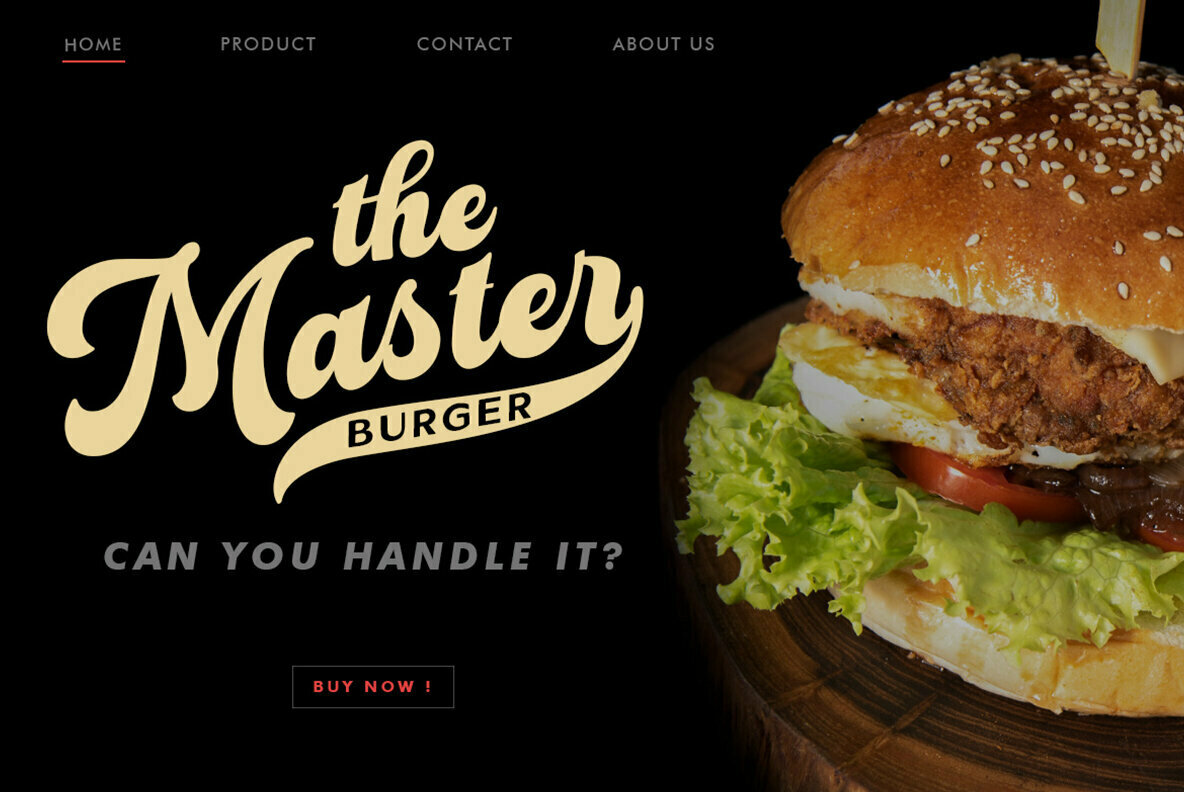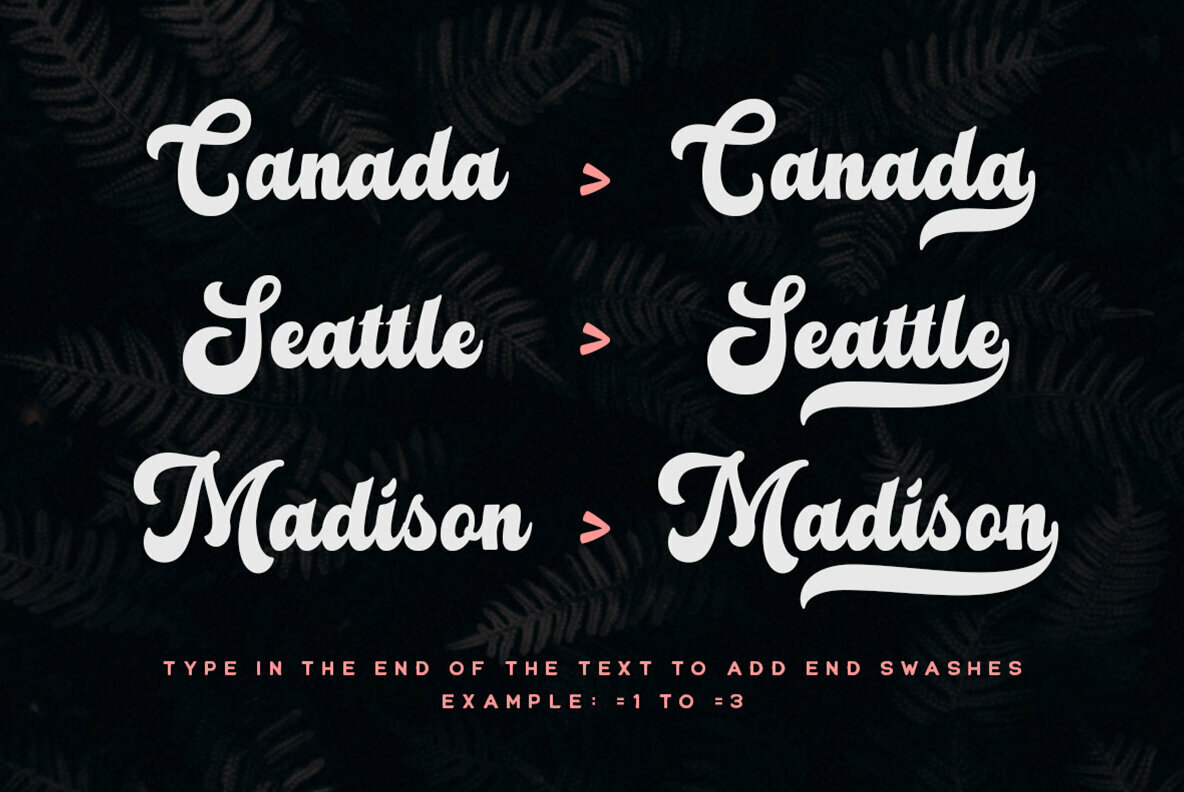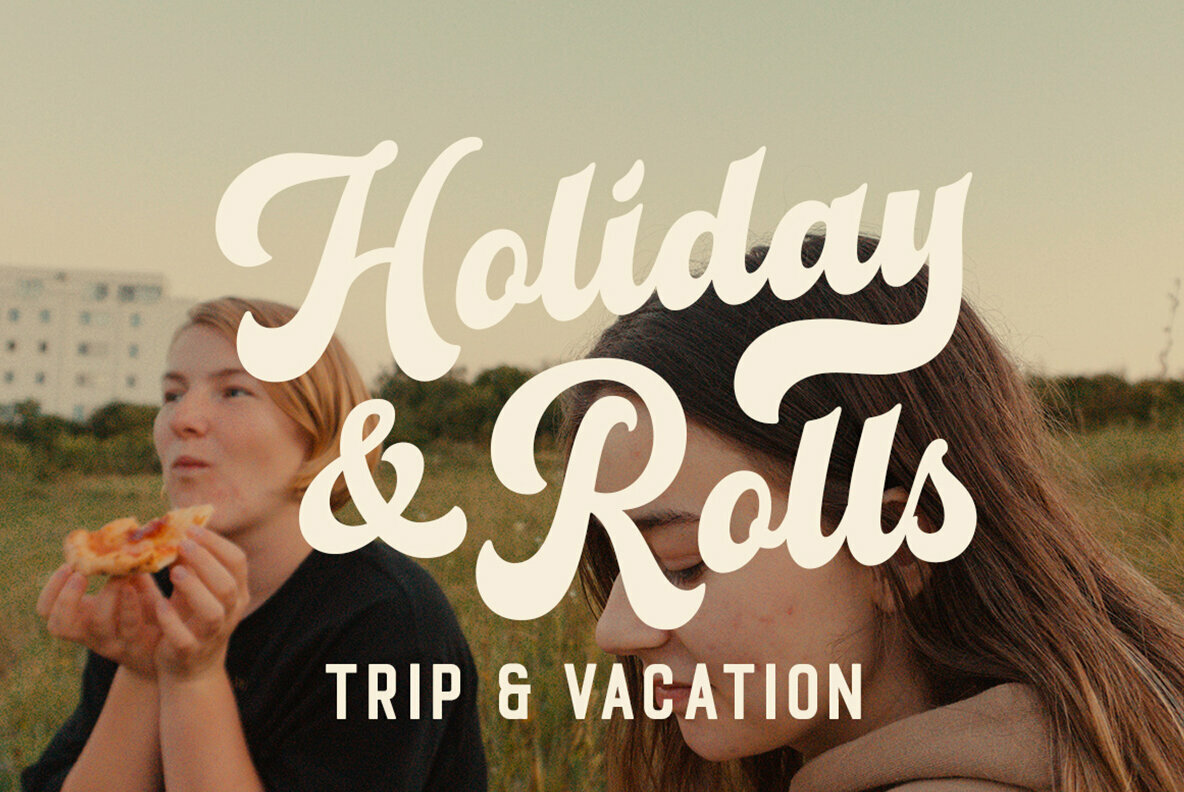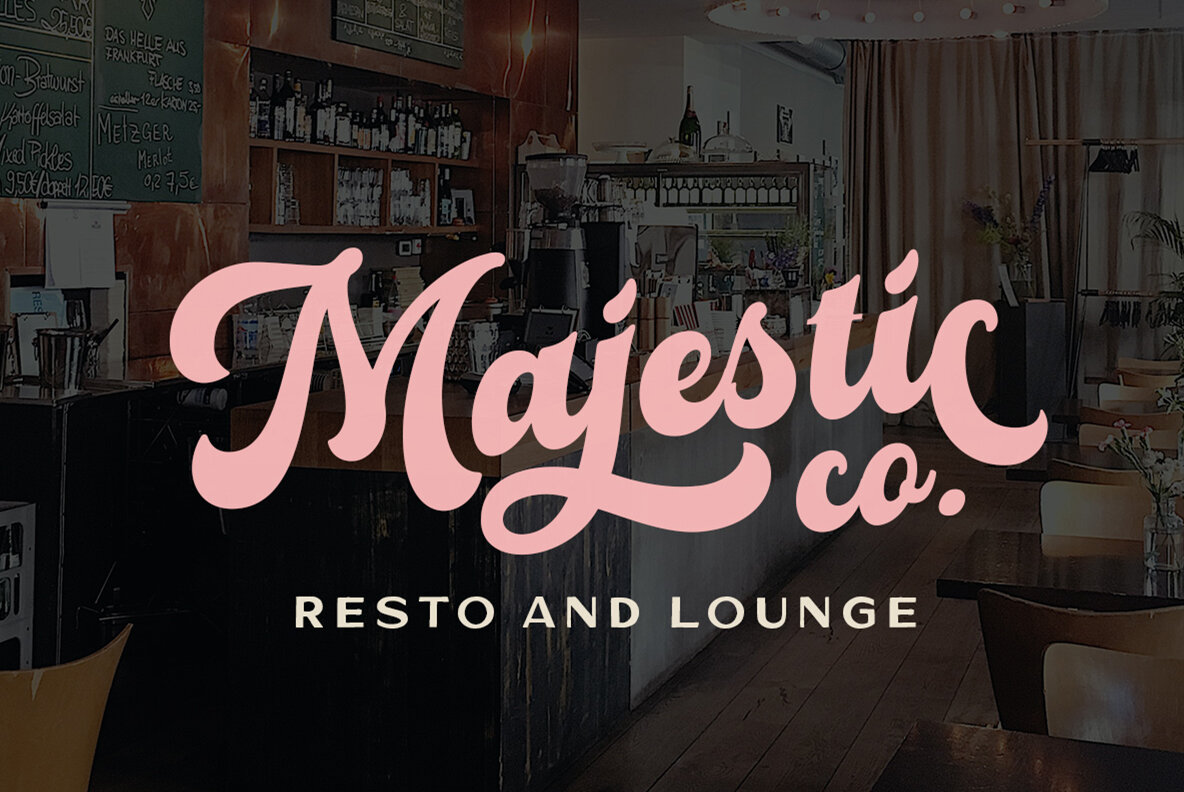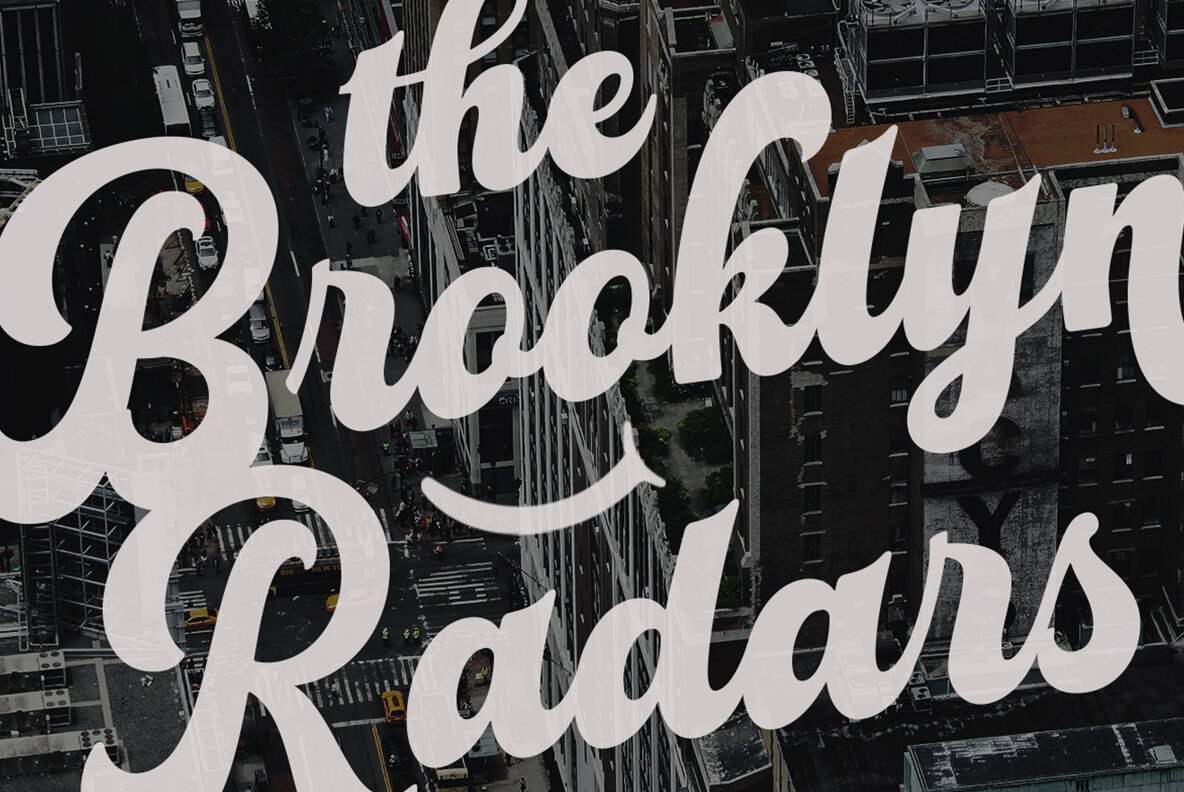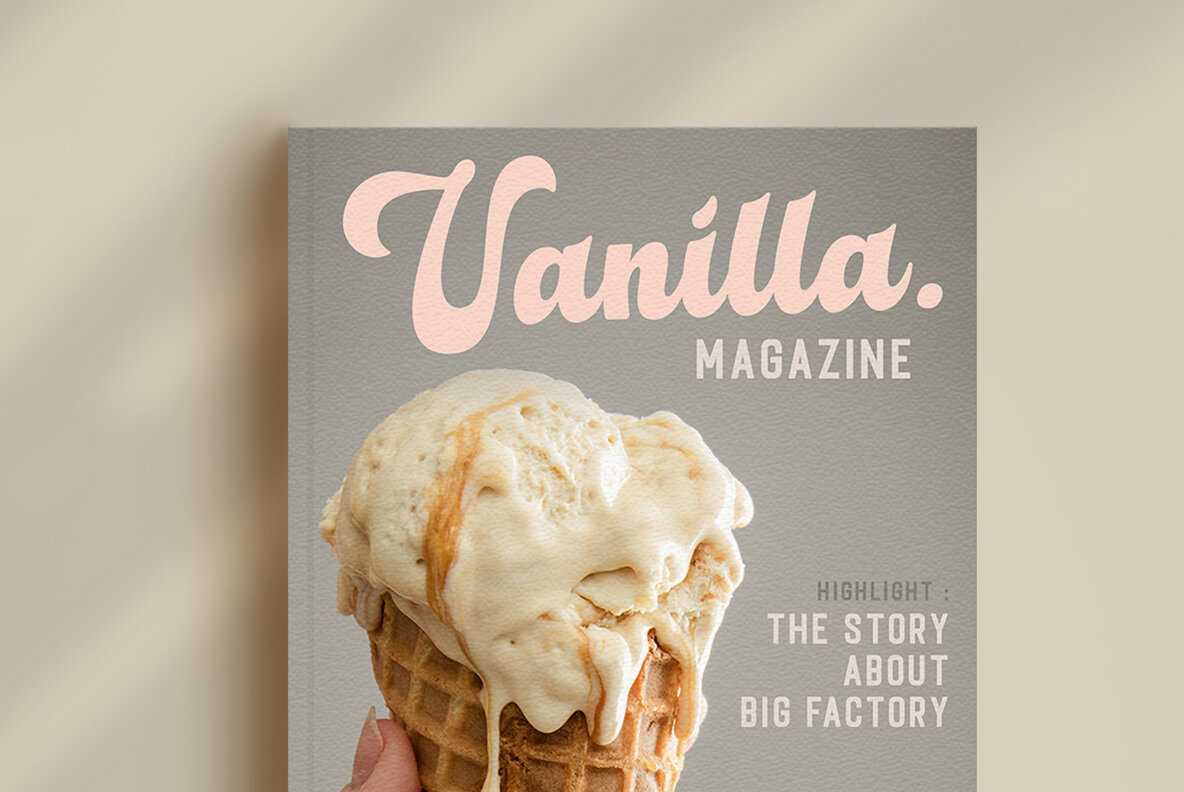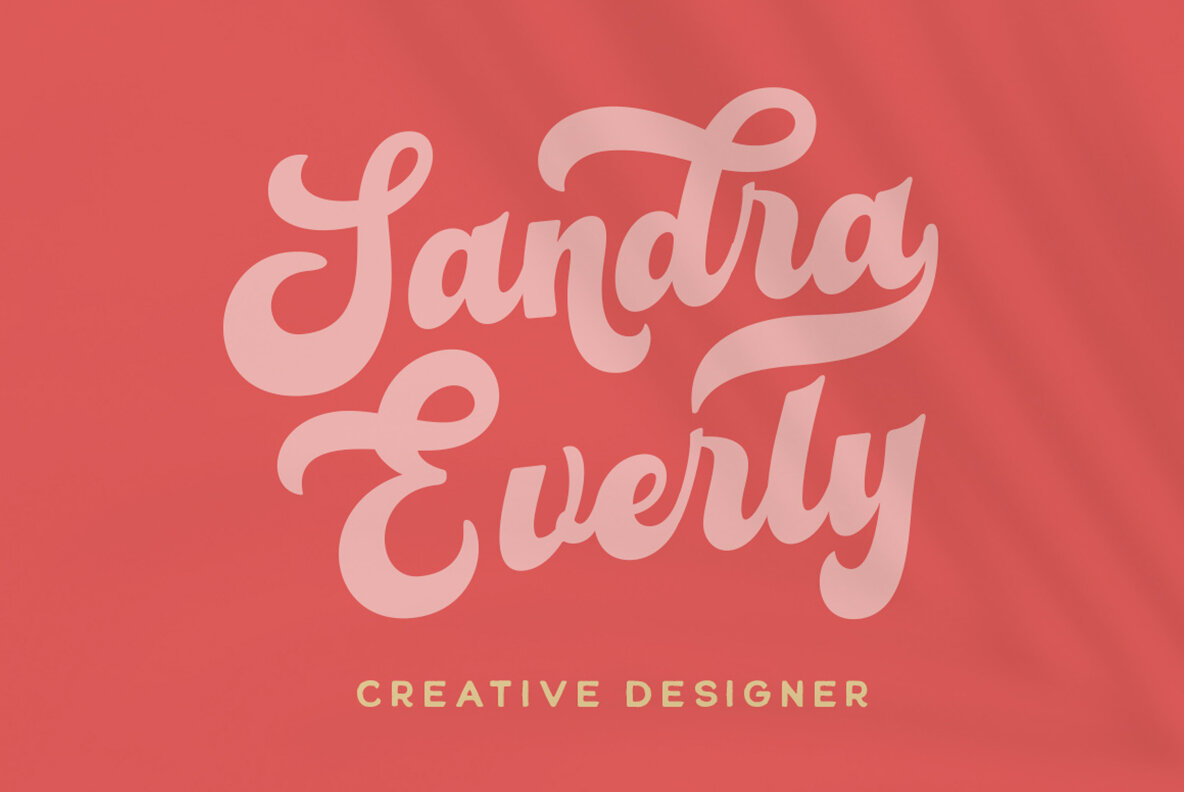
Glady Font
Glady Script
Glady is a compelling script typeface that boasts bold strokes and an eye-catching style, making it a choice piece for diverse design applications. Highlighted by its distinctive swashes, this font brings a singular charm to wedding invitations, labels, and logos. Its versatility spans across various mediums, including magazines, books, greeting cards, packaging, and fashion design, allowing it to seamlessly integrate into both traditional and contemporary aesthetics. To fully leverage Glady's extensive features, design software equipped with OpenType capabilities and Glyphs panels, such as Adobe applications and Corel Draw, is recommended. This ensures designers can access the entire range of glyph variations, enhancing creative possibilities.Glady: Bold Script with a Standout Appeal